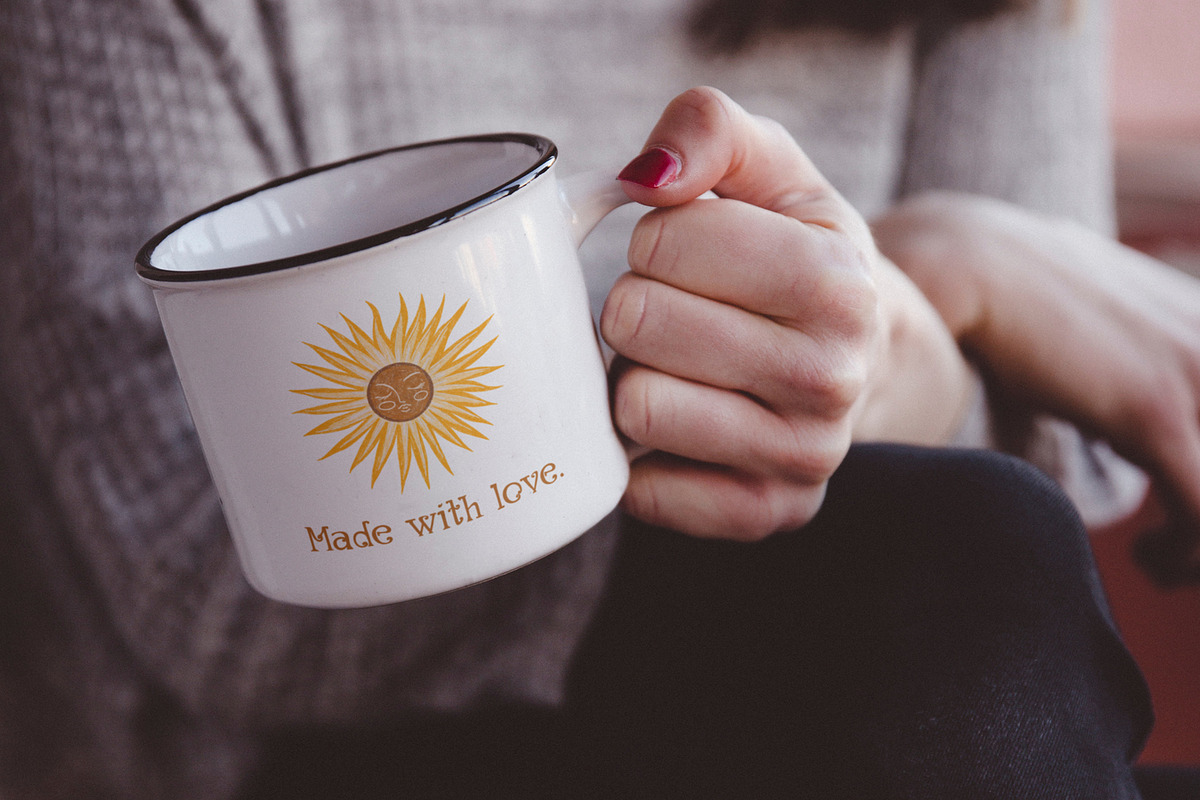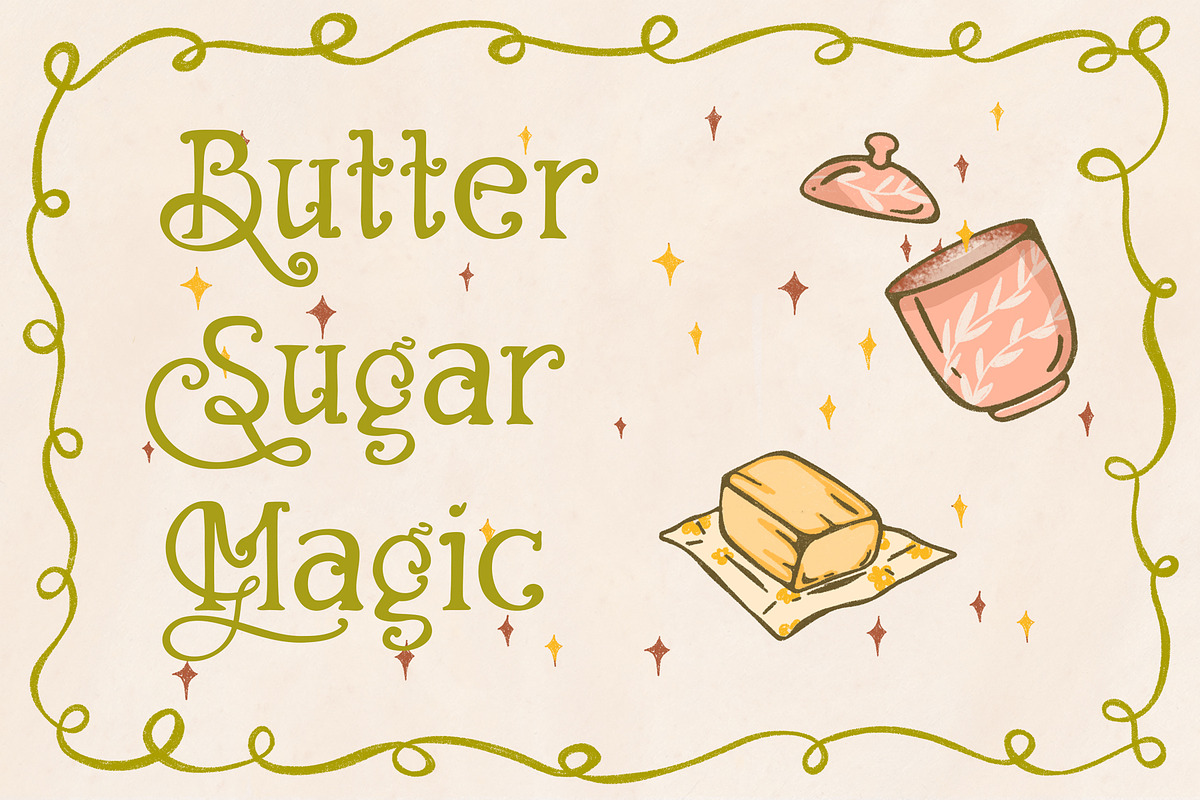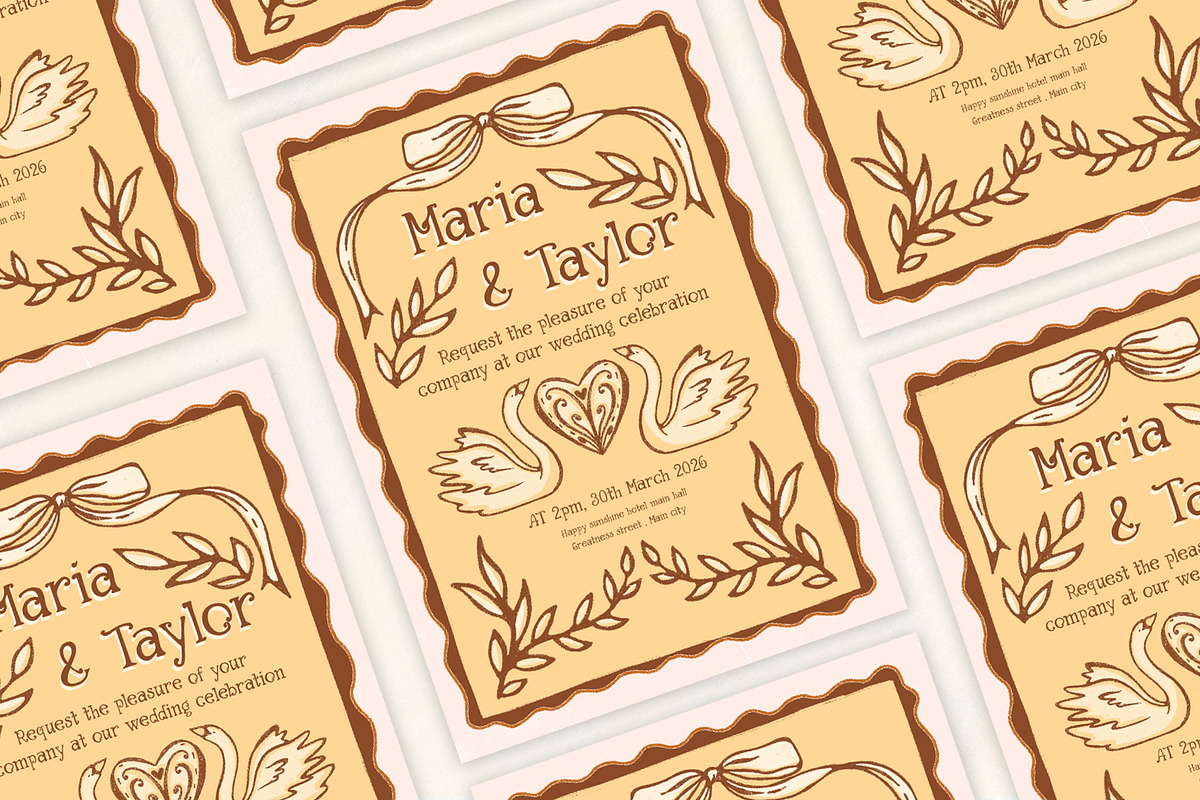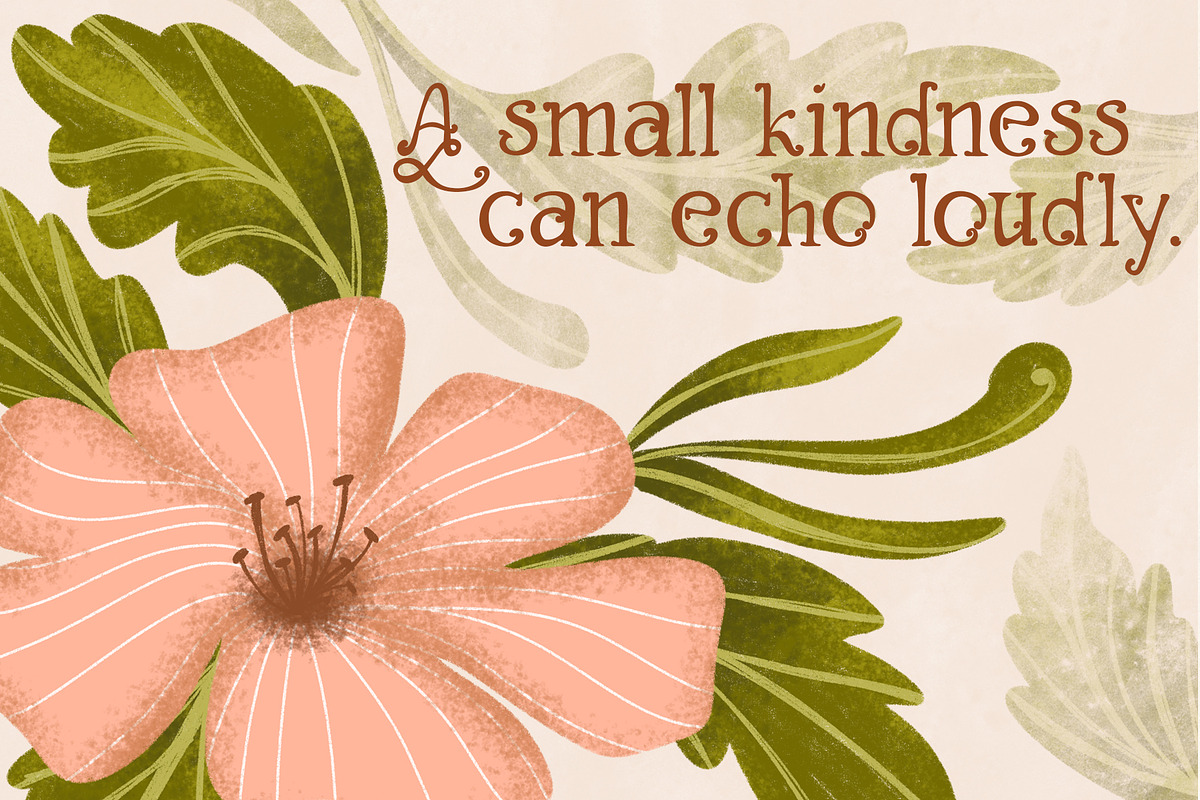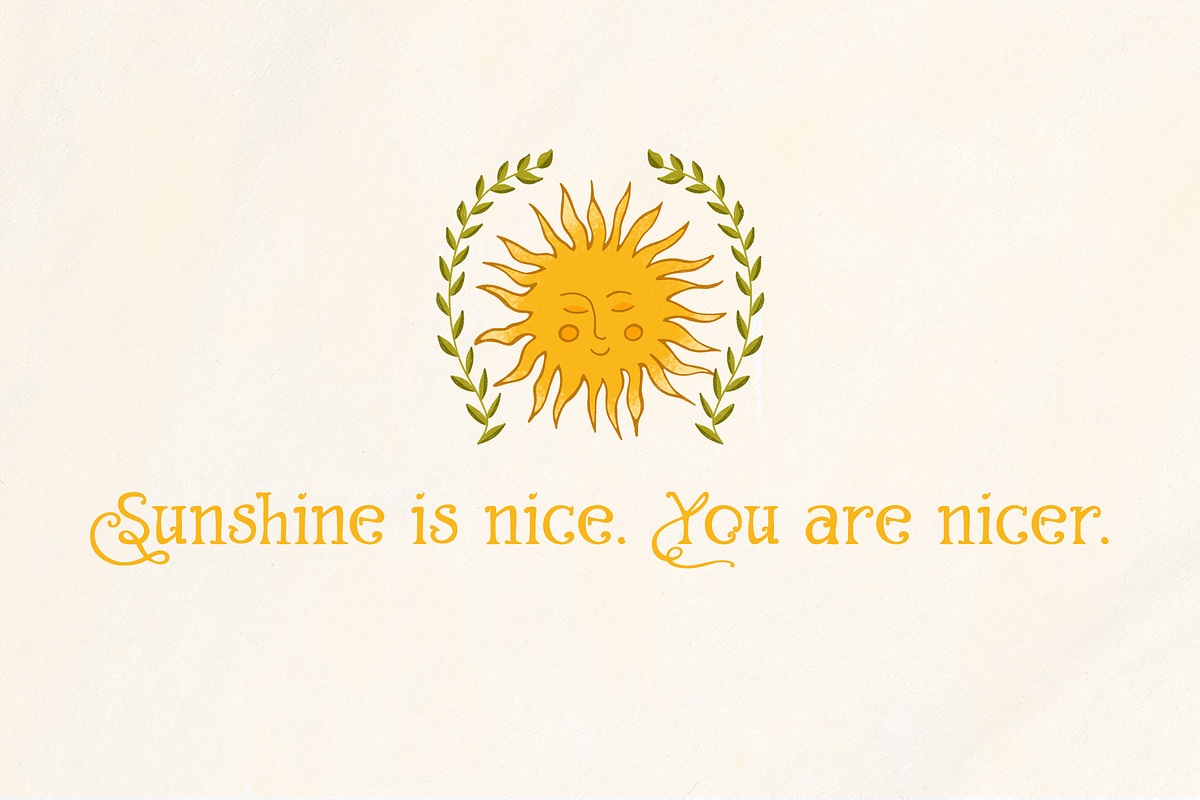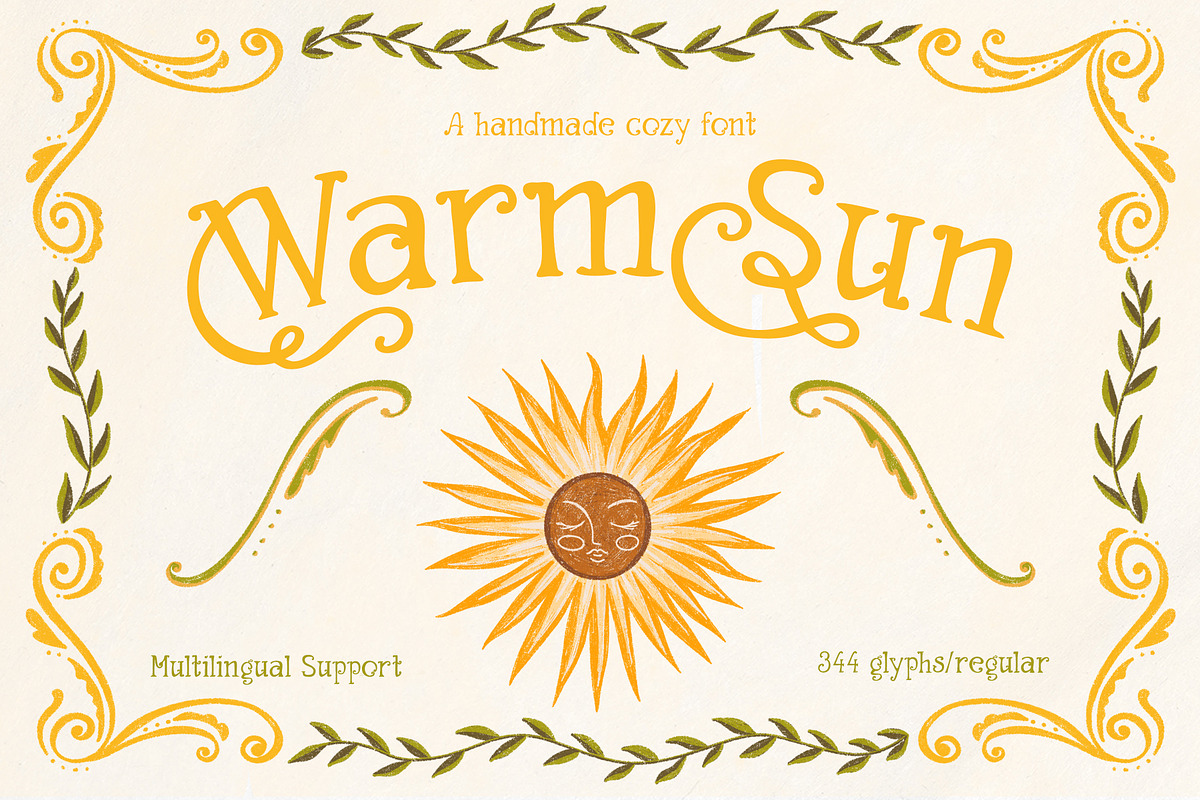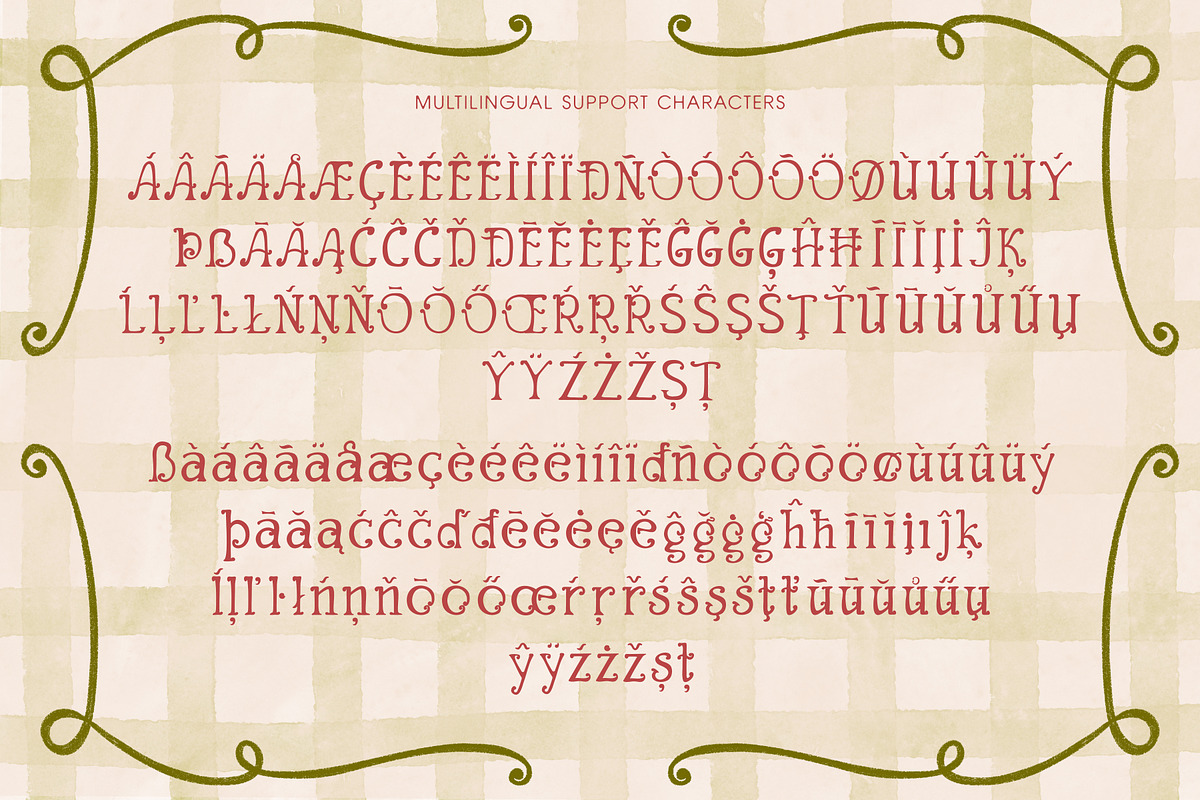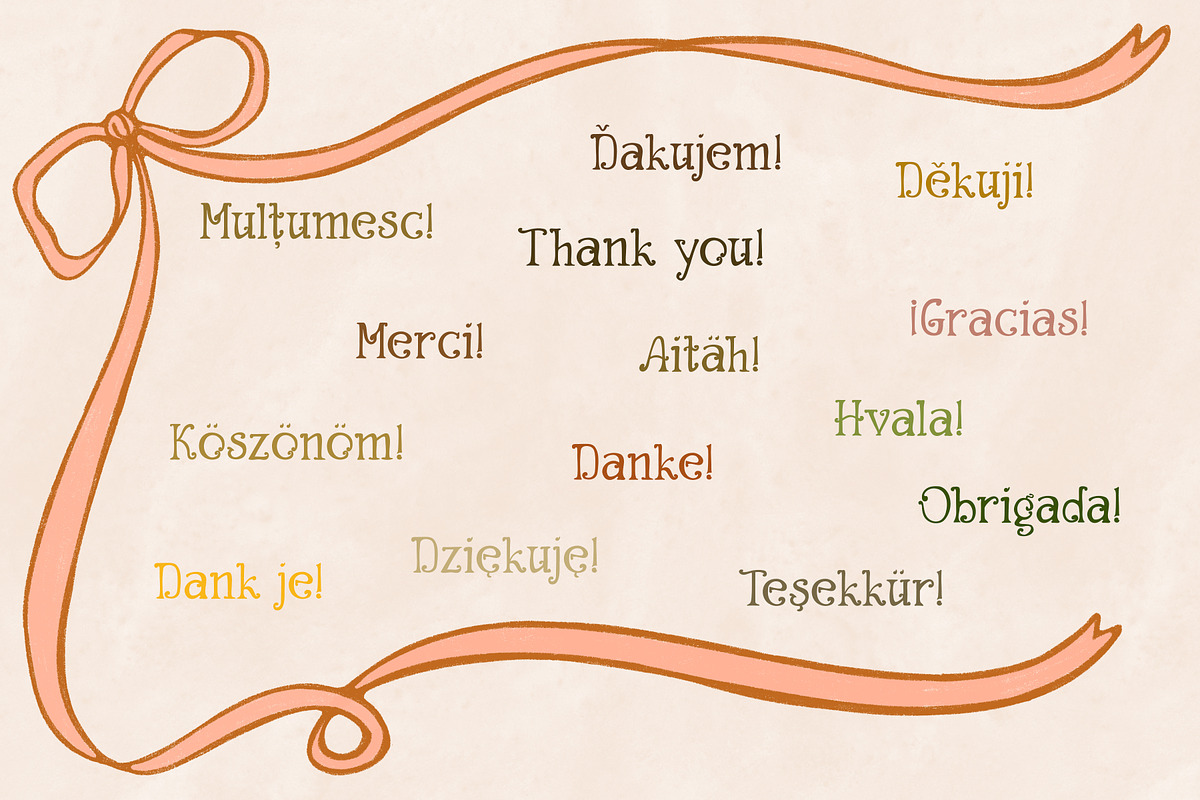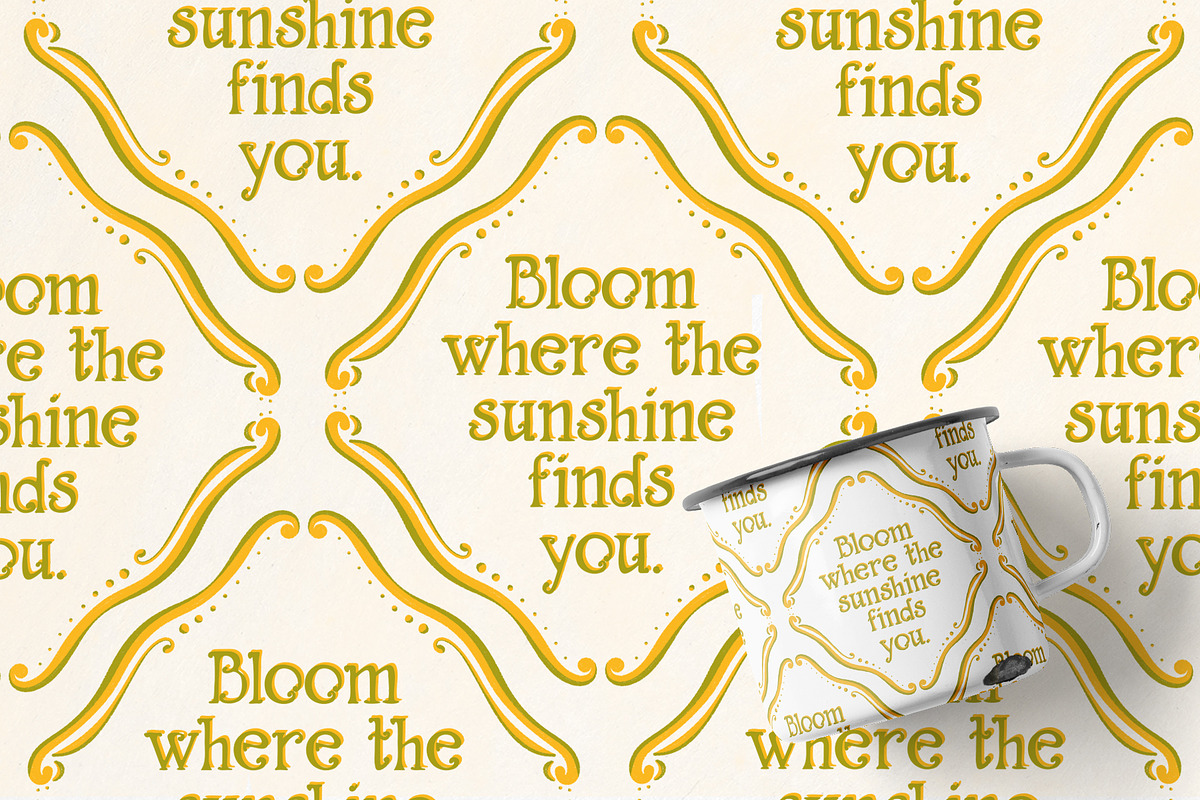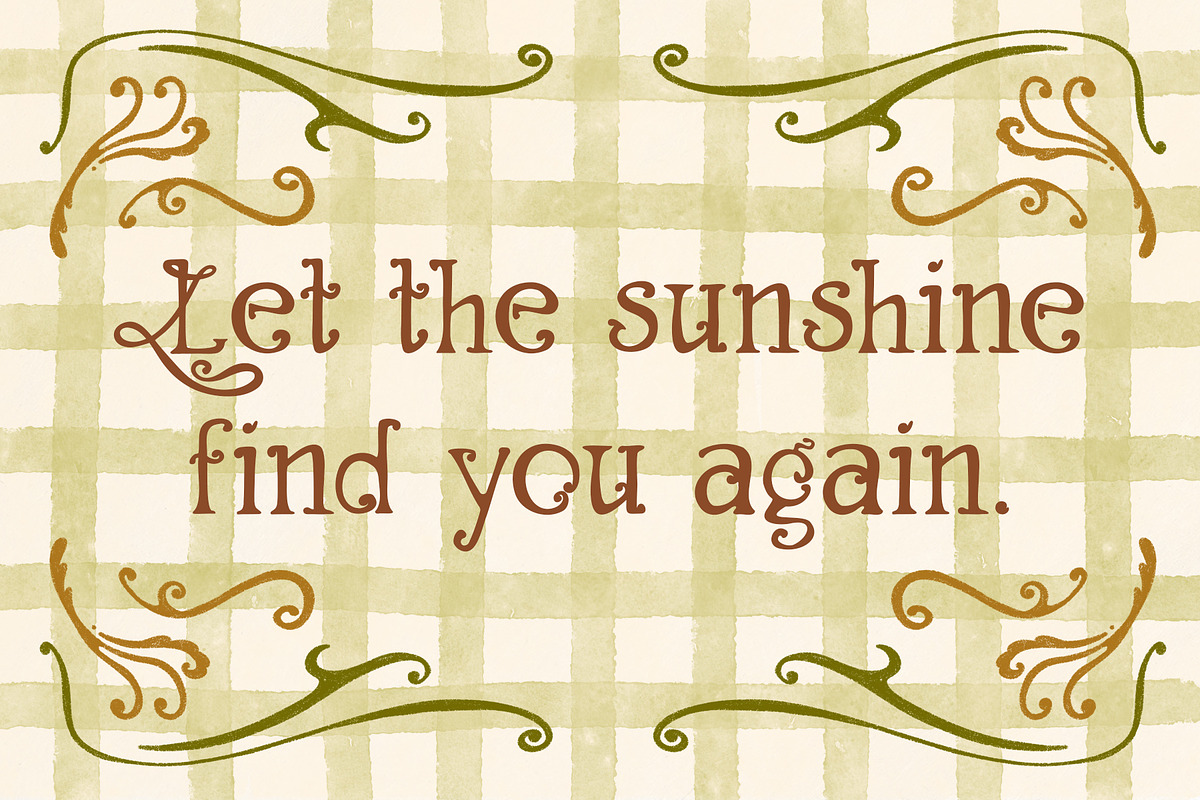
WarmSun Cozy Cottagecore Serif Font
Cozy hand-drawn serif font with a soft cottagecore feel. Warm, friendly letter shapes. Easy to read in small text and beautiful in large display.
Includes decorative alternates for English uppercase letters. Total 344 glyphs.
Great for cozy branding, book covers, invitations, packaging, social media, and decorative designs. ✨🌿